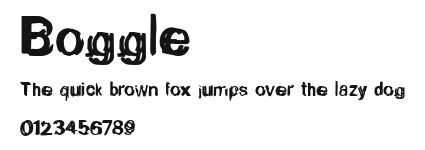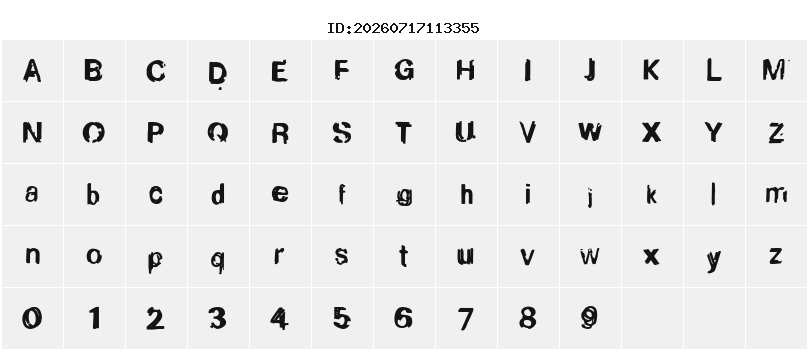
• Font Name: Boggle
• Full Font Name: Boggle
• PostScript Name: Boggle
• Copyright: © 1996/Fabrizio Gilardino/2 Rebels
About Boggle.ttf
Boggle.ttf is a modern, elegant sans-serif font designed for ultimate readability and visual harmony. Perfect for branding, headlines, web design, and print materials.